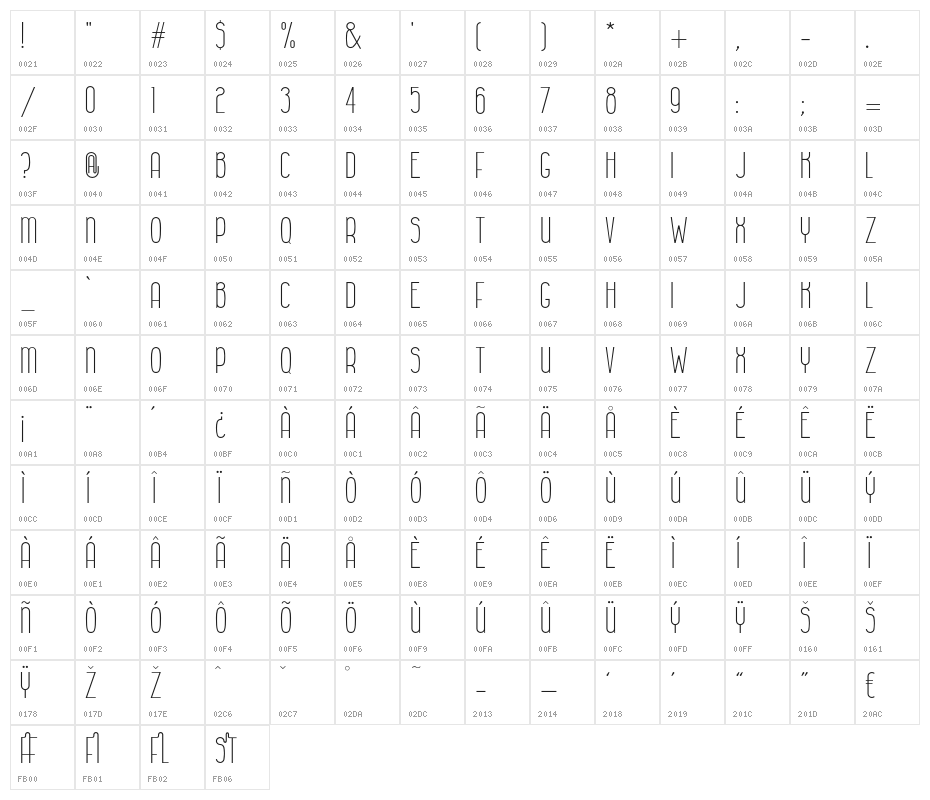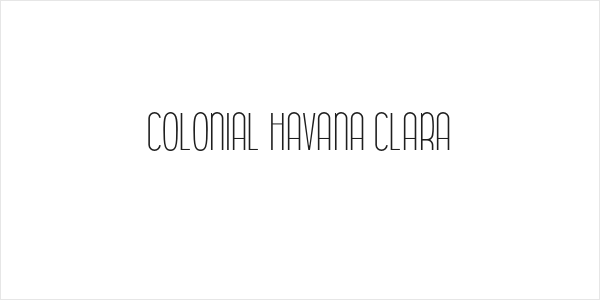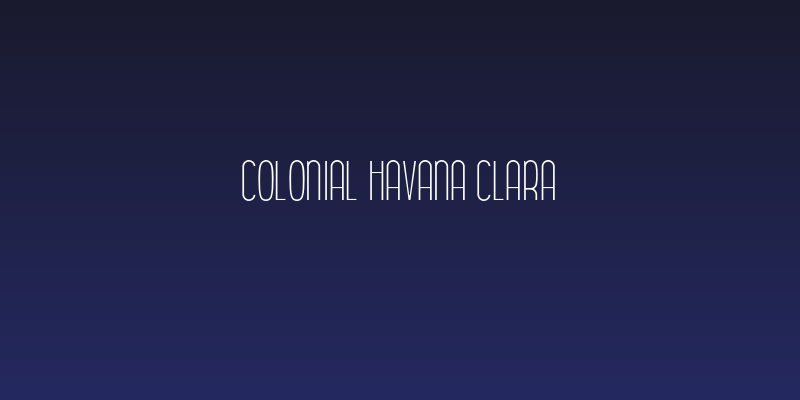
Colonial Havana Clara Font
Colonial Havana Clara Description
This font features a tall, narrow design with clean, straight lines and minimal curves, giving it a modern and elegant appearance. The characters are uniformly spaced, with a consistent stroke width that maintains a sleek and sophisticated look. The uppercase and lowercase letters share a similar height, enhancing the uniformity and balance of the typeface. The numerals and special characters are designed to complement the alphabetic characters, maintaining the same slender and elongated style. This font's simplicity and clarity make it highly readable, while its unique proportions add a touch of refinement and style.
| Proposed Projects | Ideal for fashion branding, luxury product packaging, editorial headlines, and minimalist design projects. |